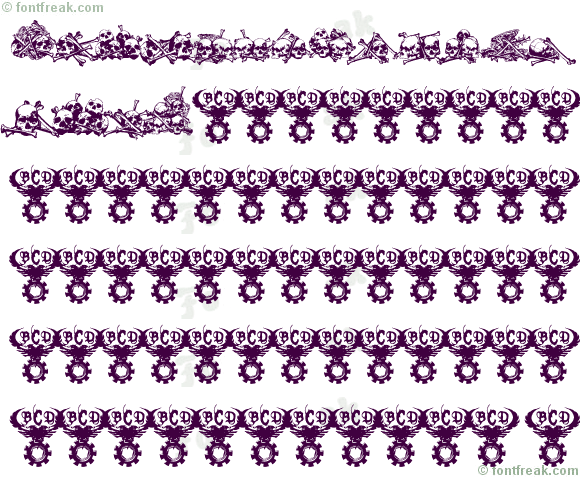
Charnel House
Charnel House by Bolt Cutter is a distinctive display font that intricately blends an avant-garde aesthetic with a touch of artistic flair. This unique typeface embodies a captivating decorative style, characterized by its bold, expressive forms that draw inspiration from various visual art movements. The font features moderate stroke weight and contrast, allowing for both legibility and an eye-catching presence in design projects. The spacing is thoughtfully crafted, ensuring that each character maintains its individuality while contributing to a cohesive overall look.
Ideal for a variety of creative endeavors, the Charnel House font shines in applications such as movie posters, where its dramatic flair can evoke intrigue and curiosity. It also works well for album covers, capturing the essence of musical artistry with its striking visuals. Graphic designers may find it perfect for creating unique branding elements, while small business owners can use it to enhance their marketing materials, giving a distinctive edge that sets their offerings apart. Content creators will appreciate its ability to bring a bold personality to social media graphics and online content.